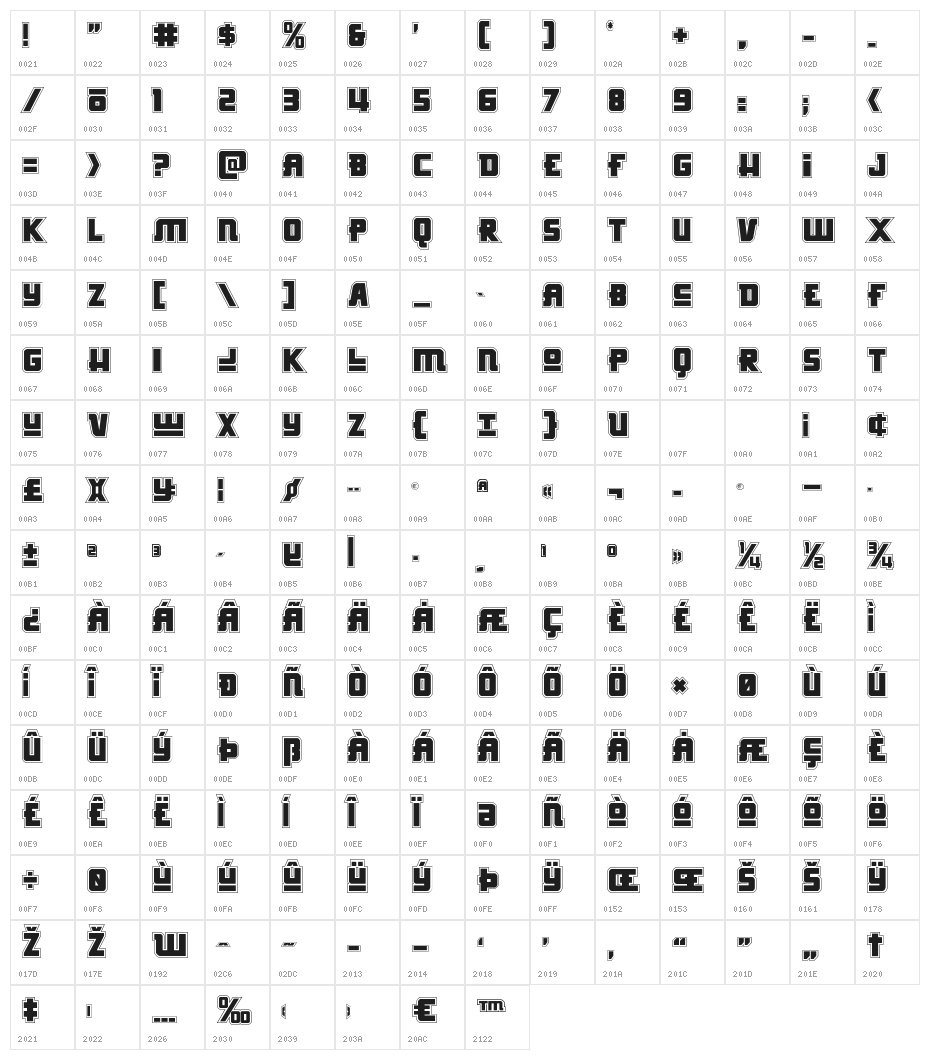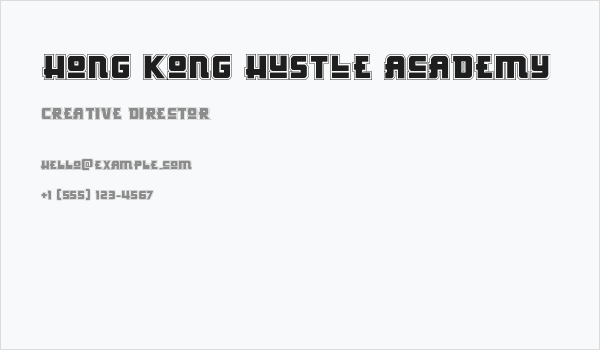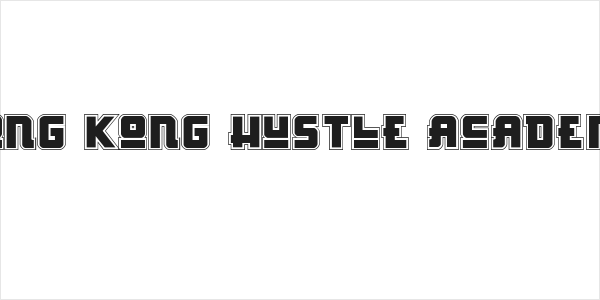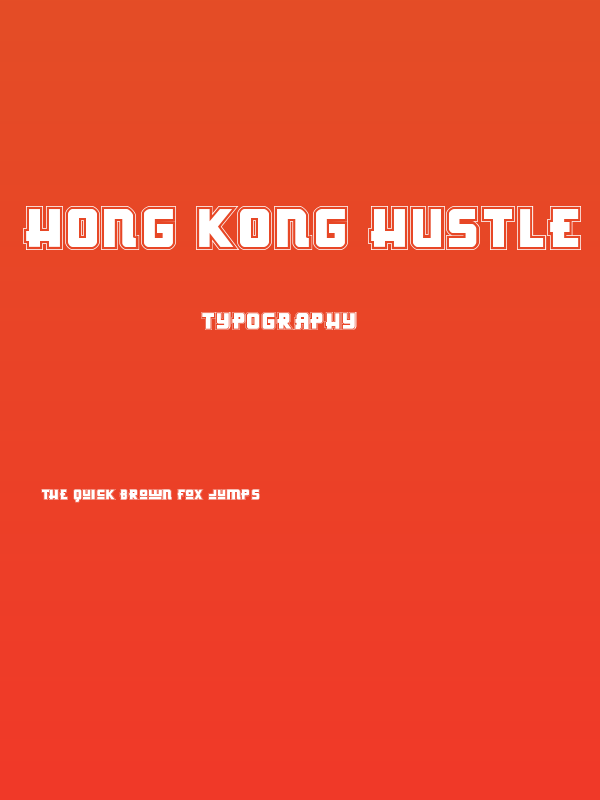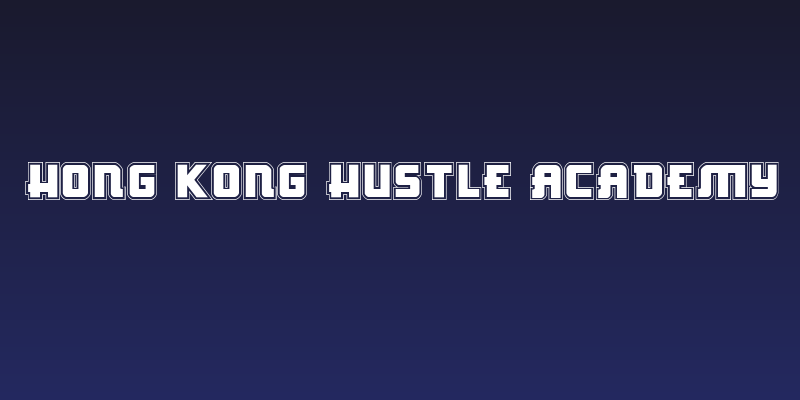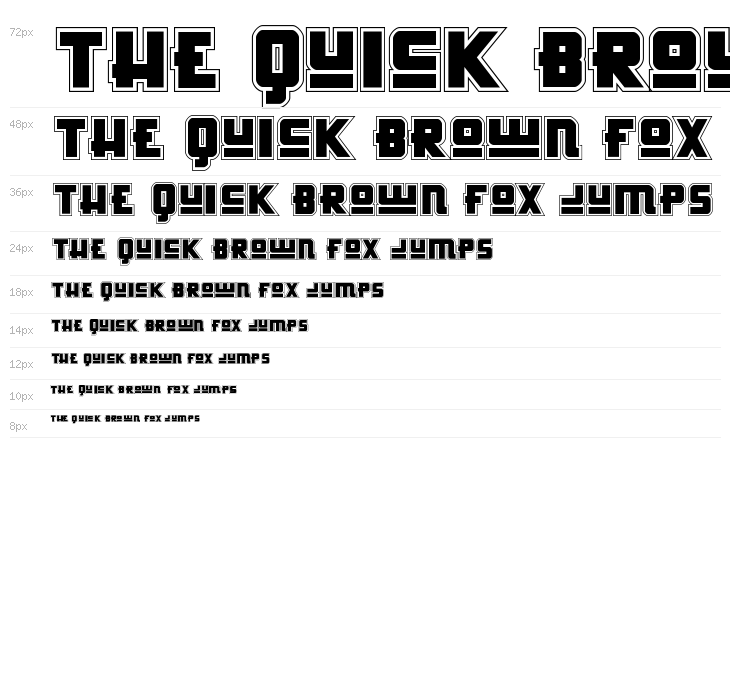
Hong Kong Hustle Academy Font
Hong Kong Hustle Academy Description
This font features a bold, geometric design with a strong, impactful presence. Each character is outlined with a thick border, creating a three-dimensional effect that enhances its visual appeal. The letters are blocky and angular, with sharp edges and a futuristic aesthetic. The uppercase and lowercase letters maintain a consistent style, while the numerals and special characters complement the overall design. This font's unique style makes it ideal for attention-grabbing headlines and creative projects that require a modern, edgy look.
| Proposed Projects | Ideal for posters, logos, video game graphics, and any project needing a modern, bold statement. |